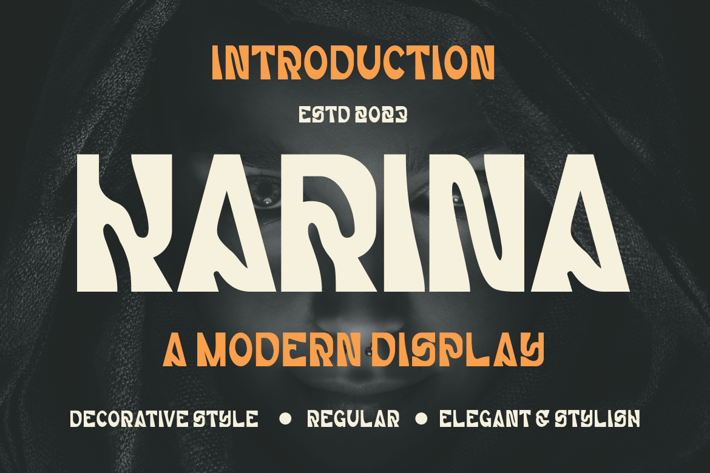
KARINA FONT
Introducing our new product KARINA FONT - Decorative Modern Font
KARINA FONT - Modern Font is a bold and authentic display font. The font is suitable for any branding project like logo, t-shirt printing, and many more. outstanding in a wide range of contexts.